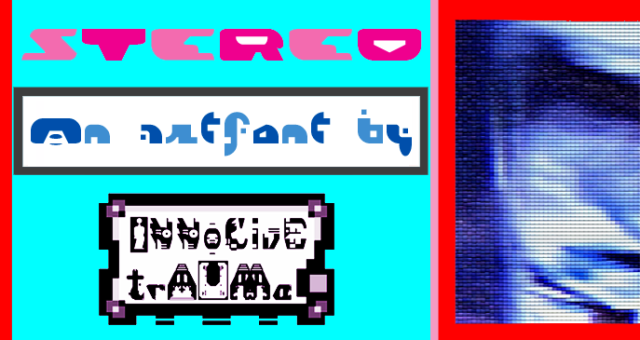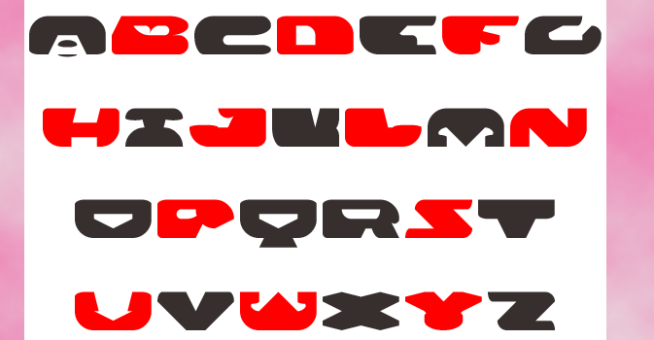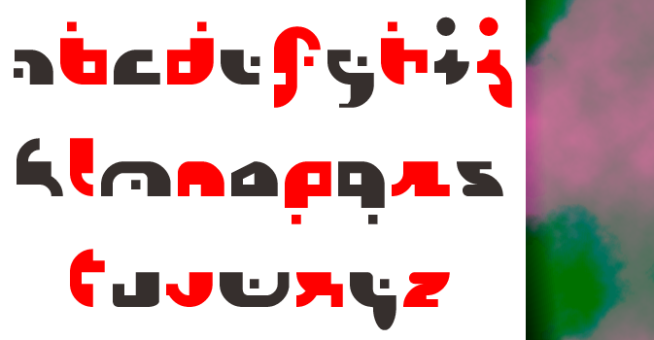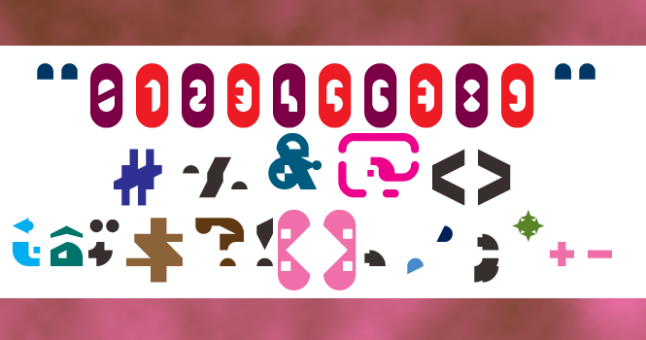
trAUMa 28 / Stereo
"Stereo", like all the "trAUMa" series, works at the frontier between Art & Type Design, Figuration & Abstraction, each font is a comprehensive world in which every glyph is a "living" entity. But put together they can produce your messages in the most accurate way.